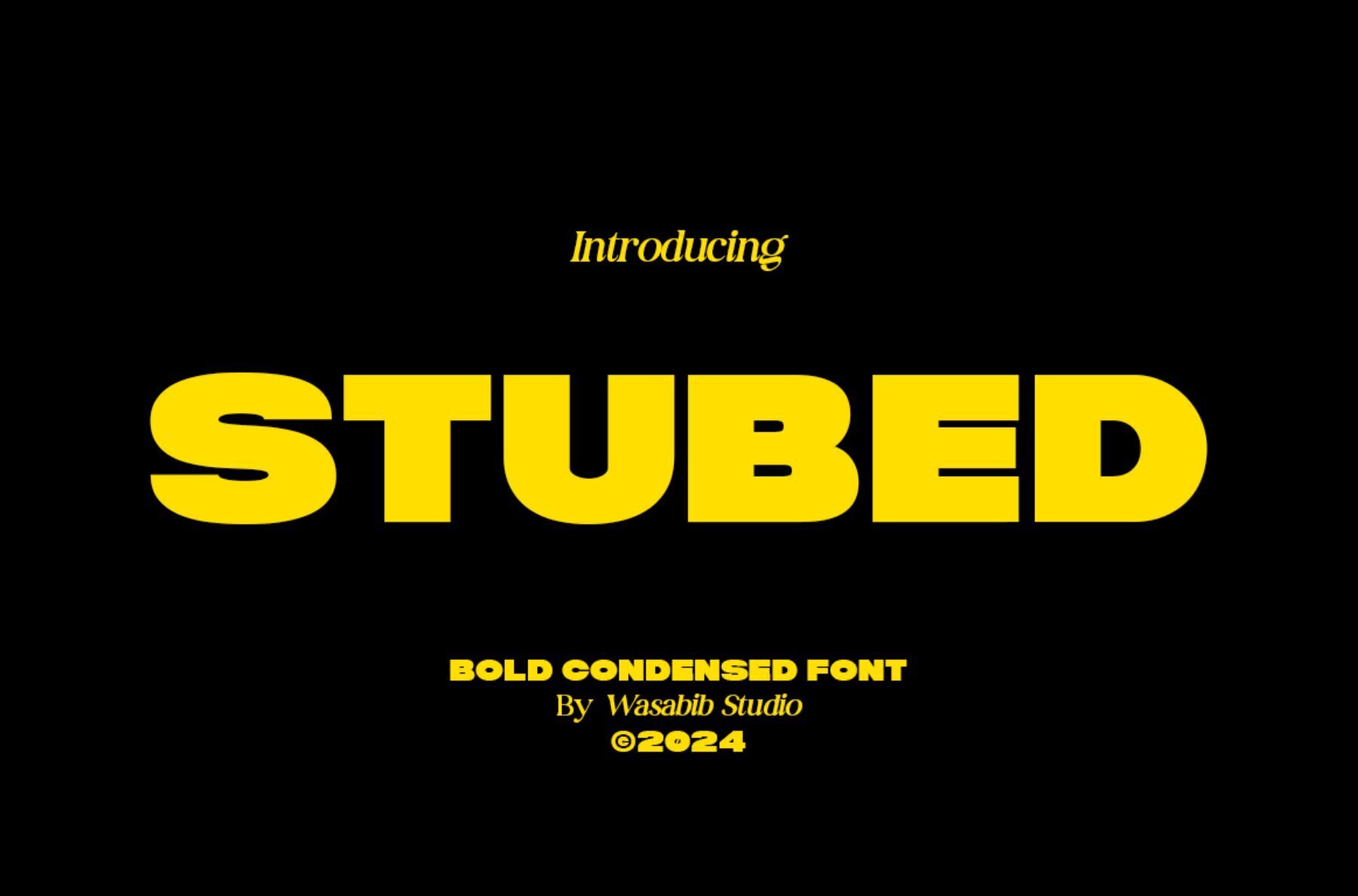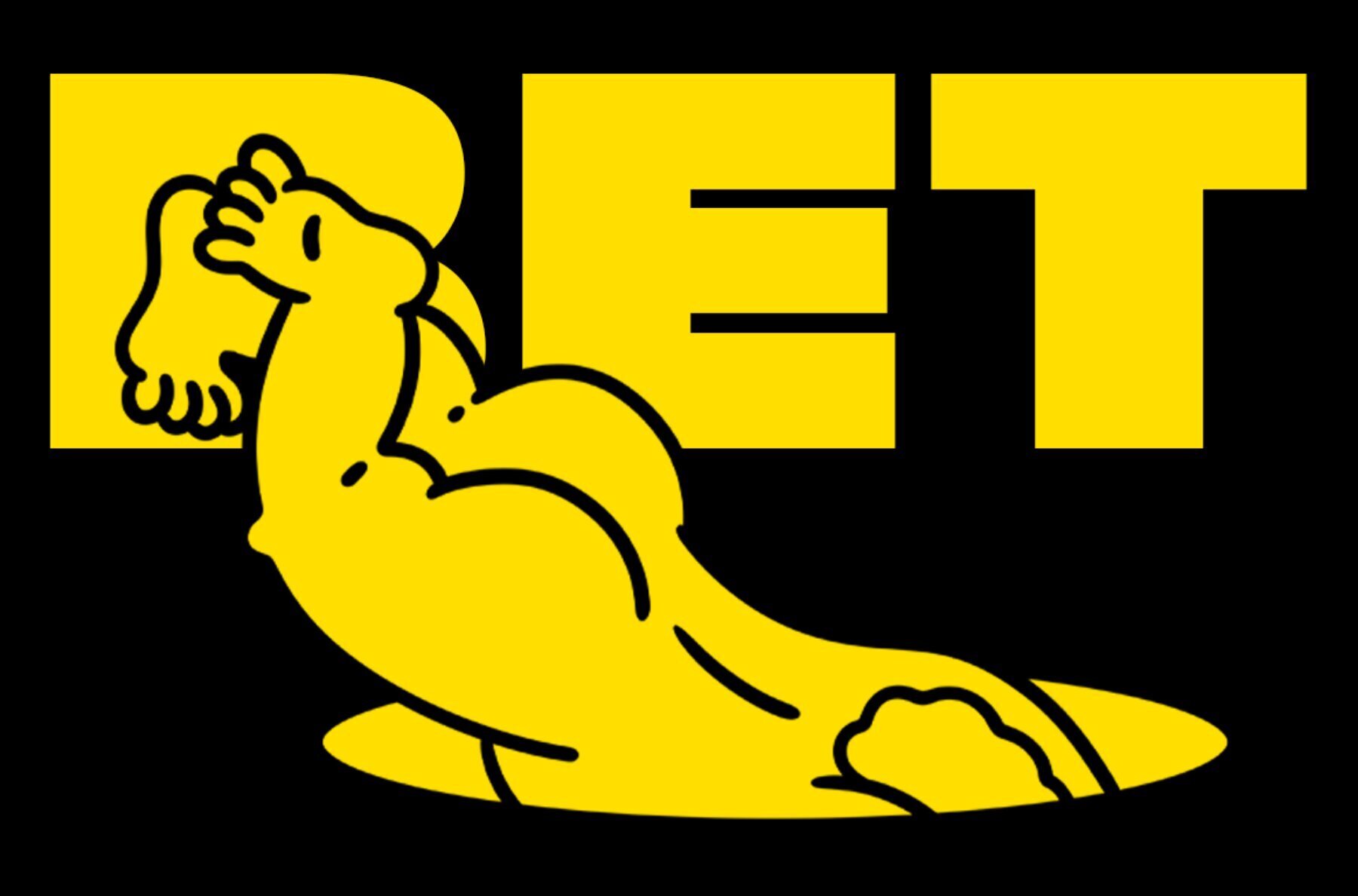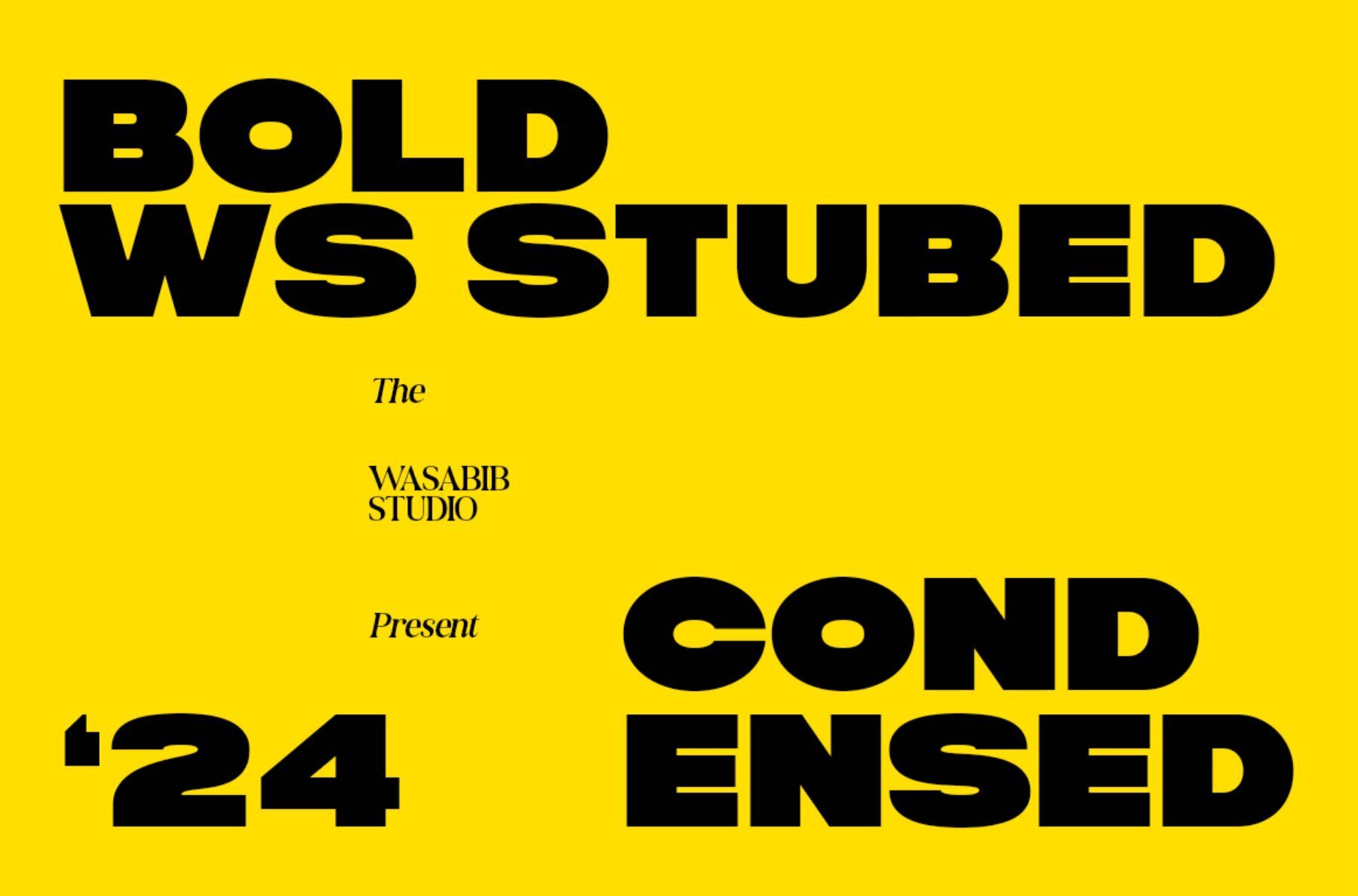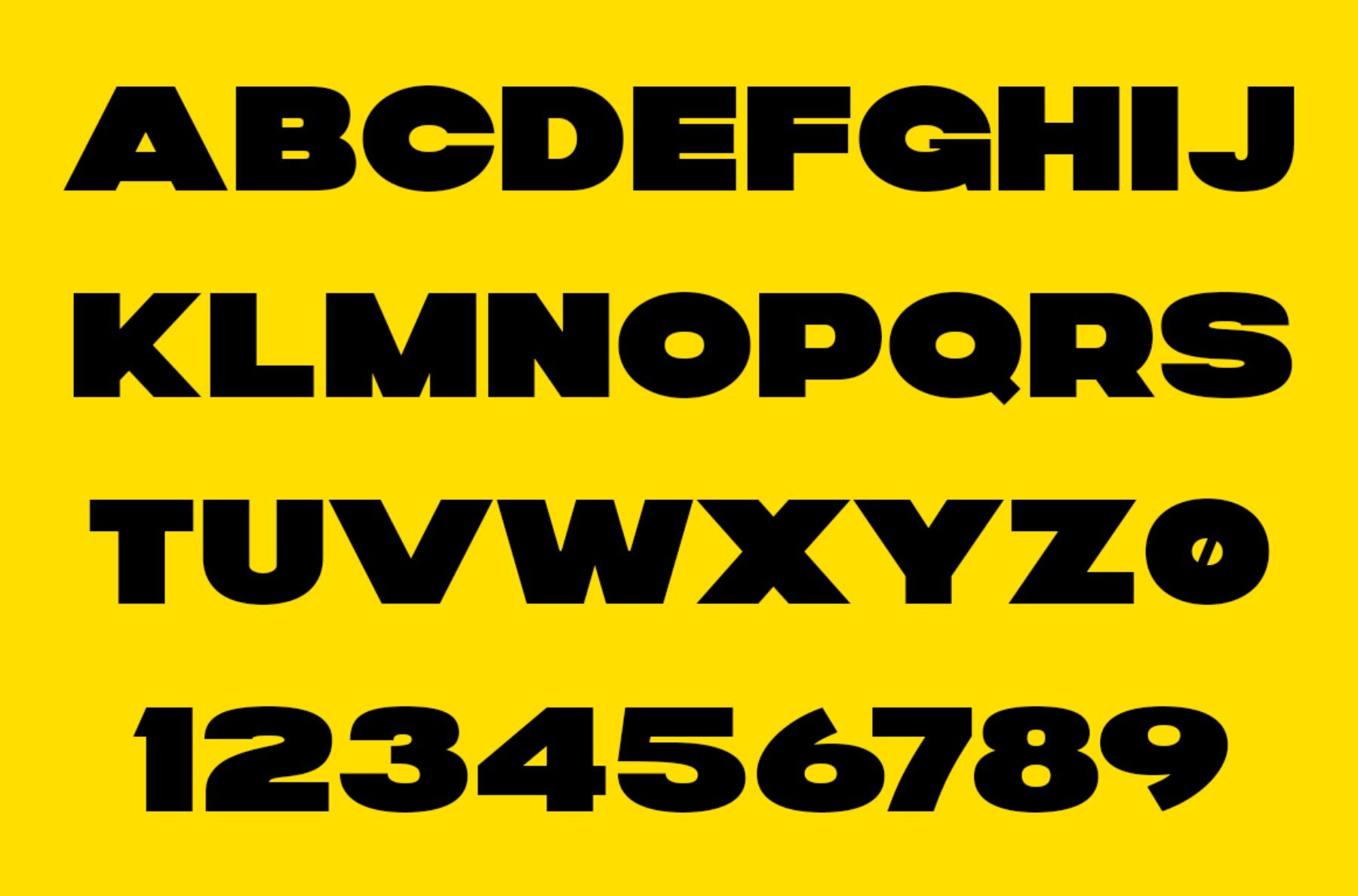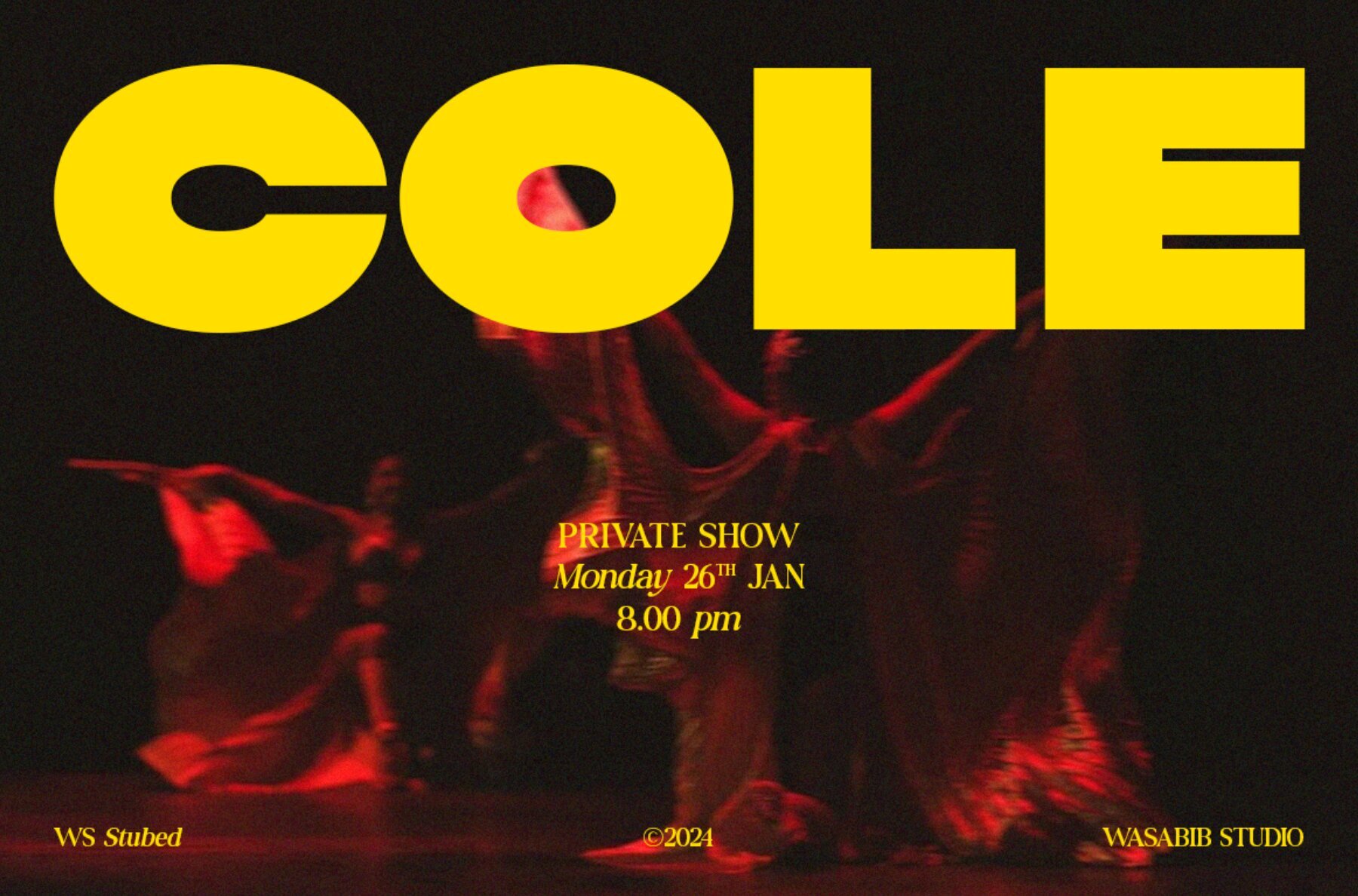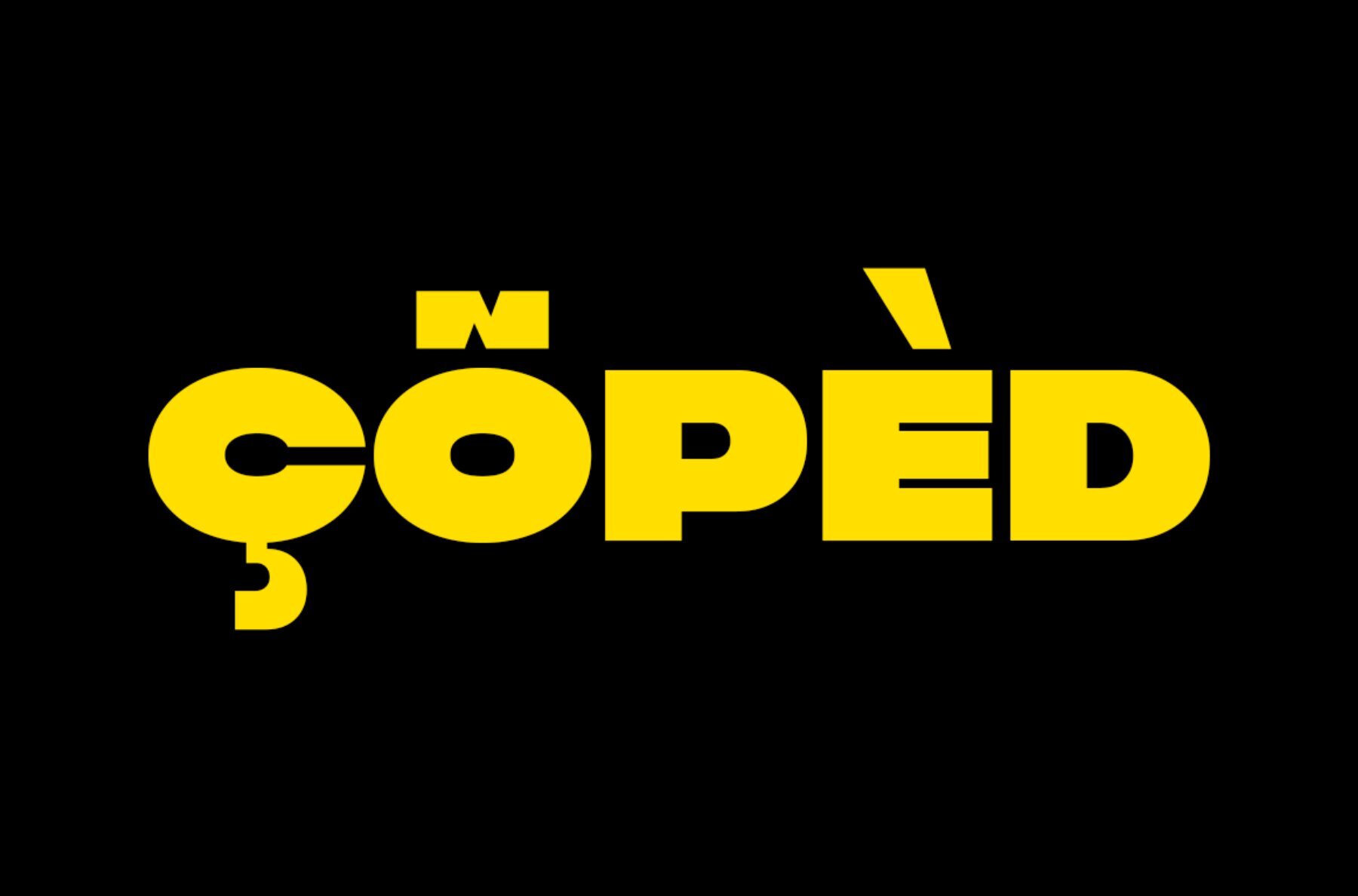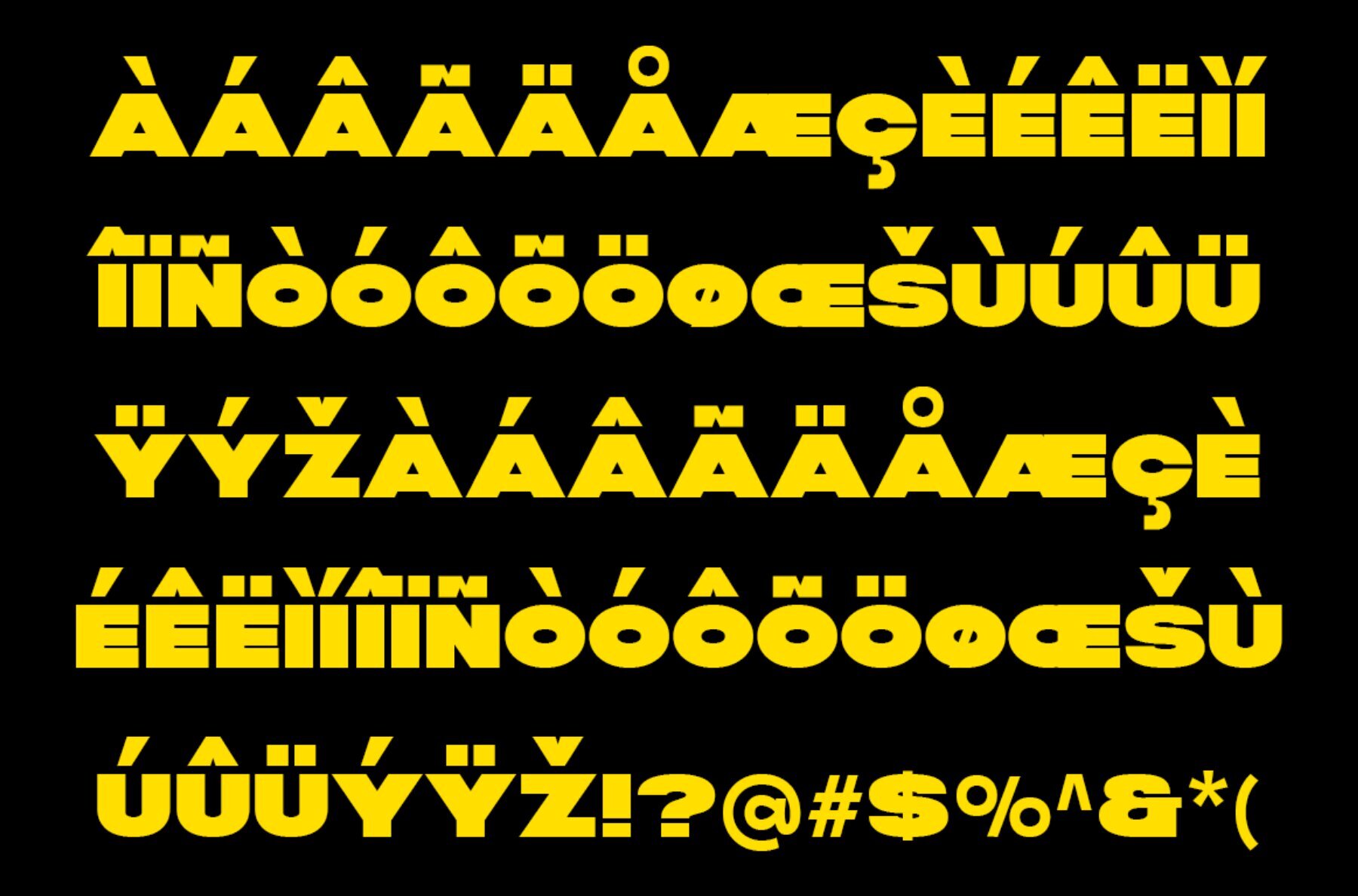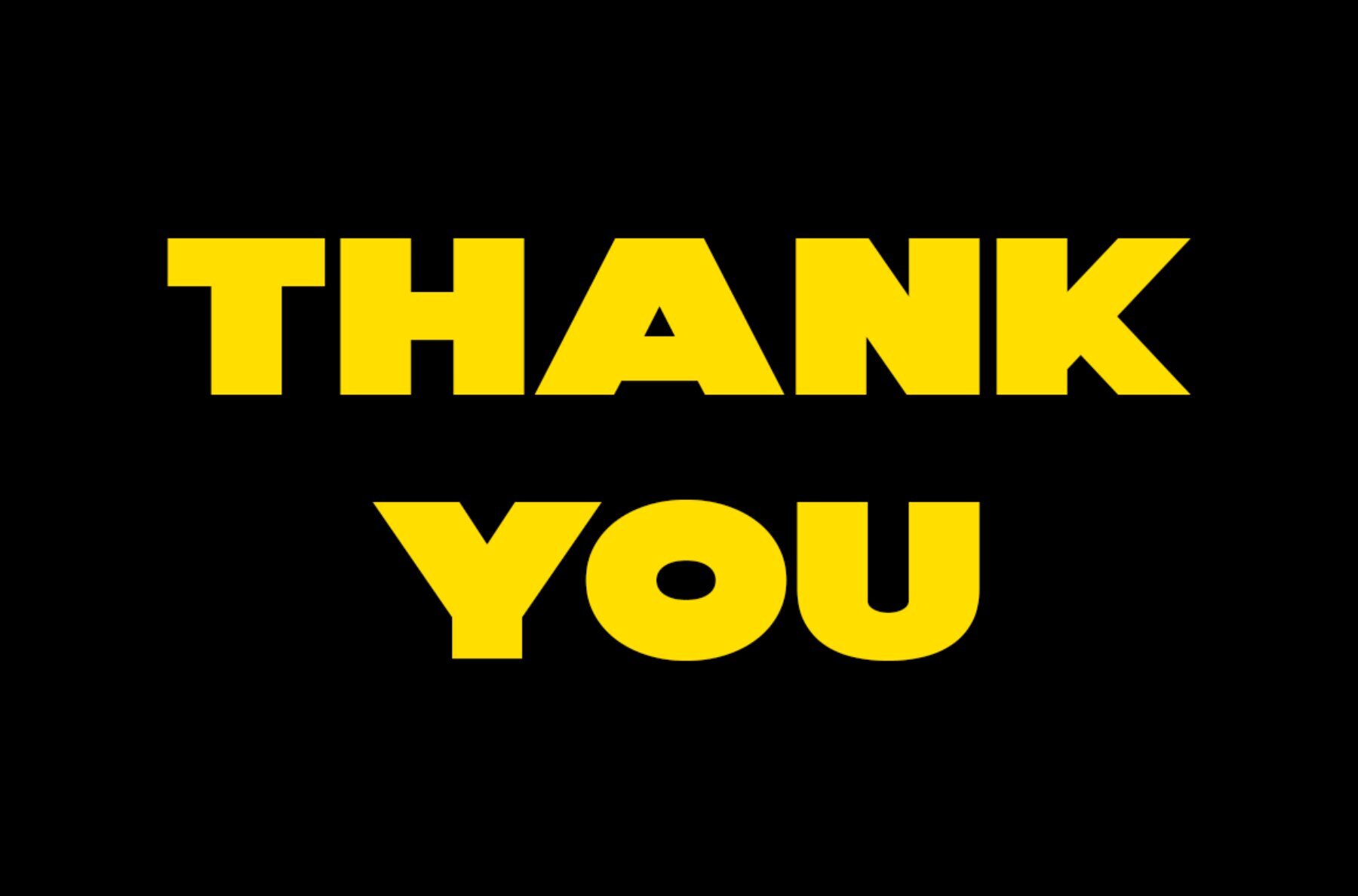
Stubed Font
WS Stubed Regular
WS Stubed is a strong, sharp, modern, and bold font that is ideal for branding purposes. Its powerful and impactful design makes it a great choice for creating a memorable brand identity that conveys strength, modernity, and professionalism. WS Stubed are designed with strong and sharp lines, giving them a distinctive and commanding presence. The bold weight adds to the font's impact, making it stand out and catch the viewer's attention.